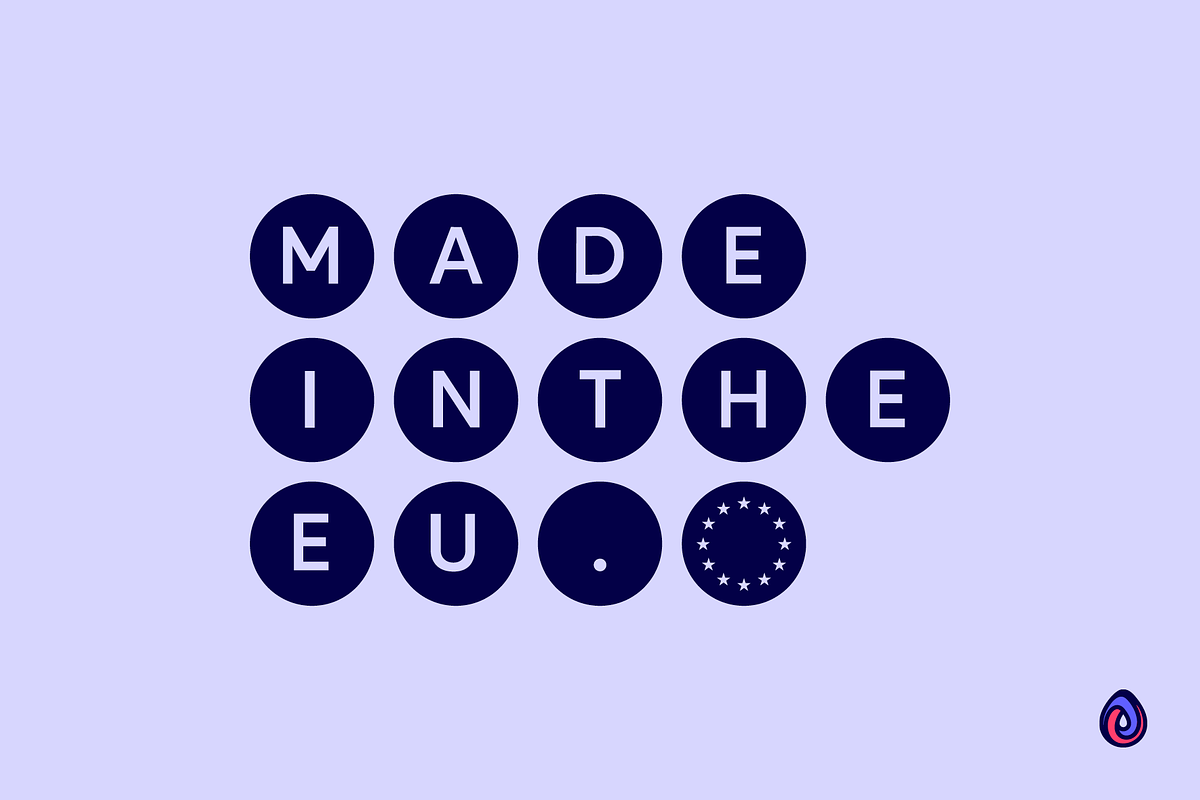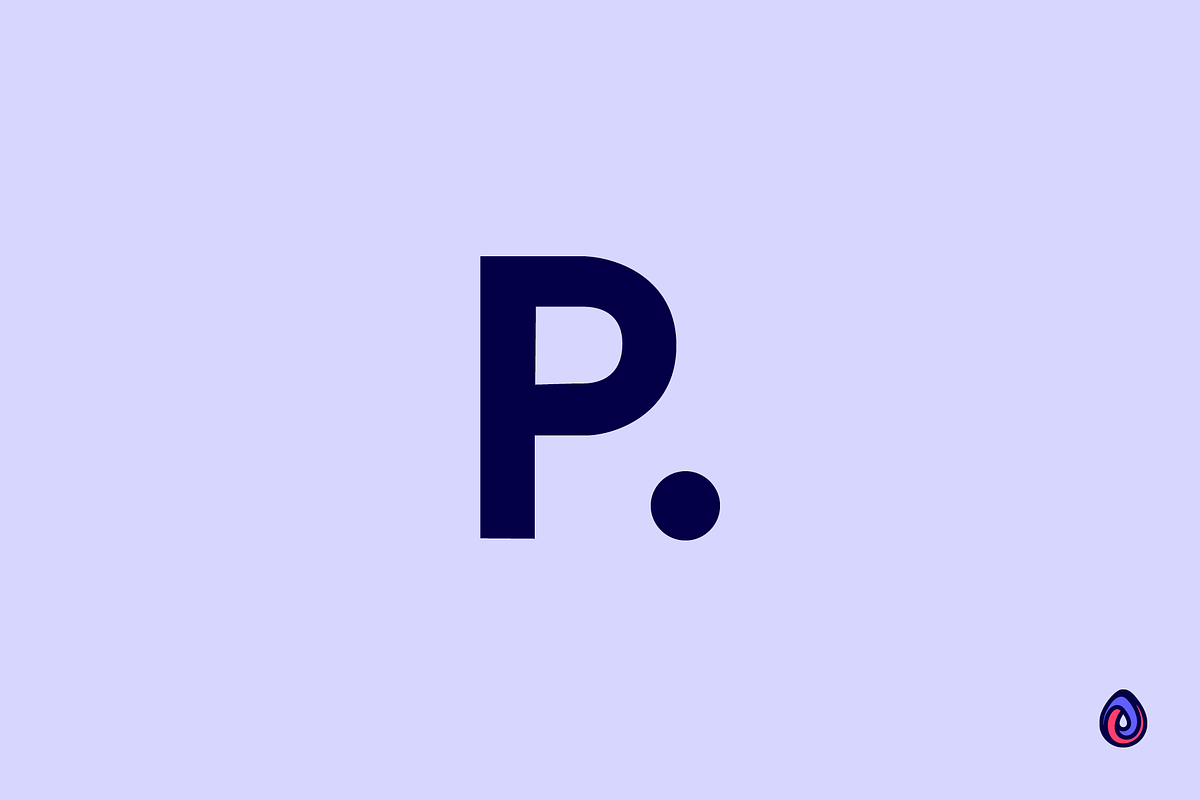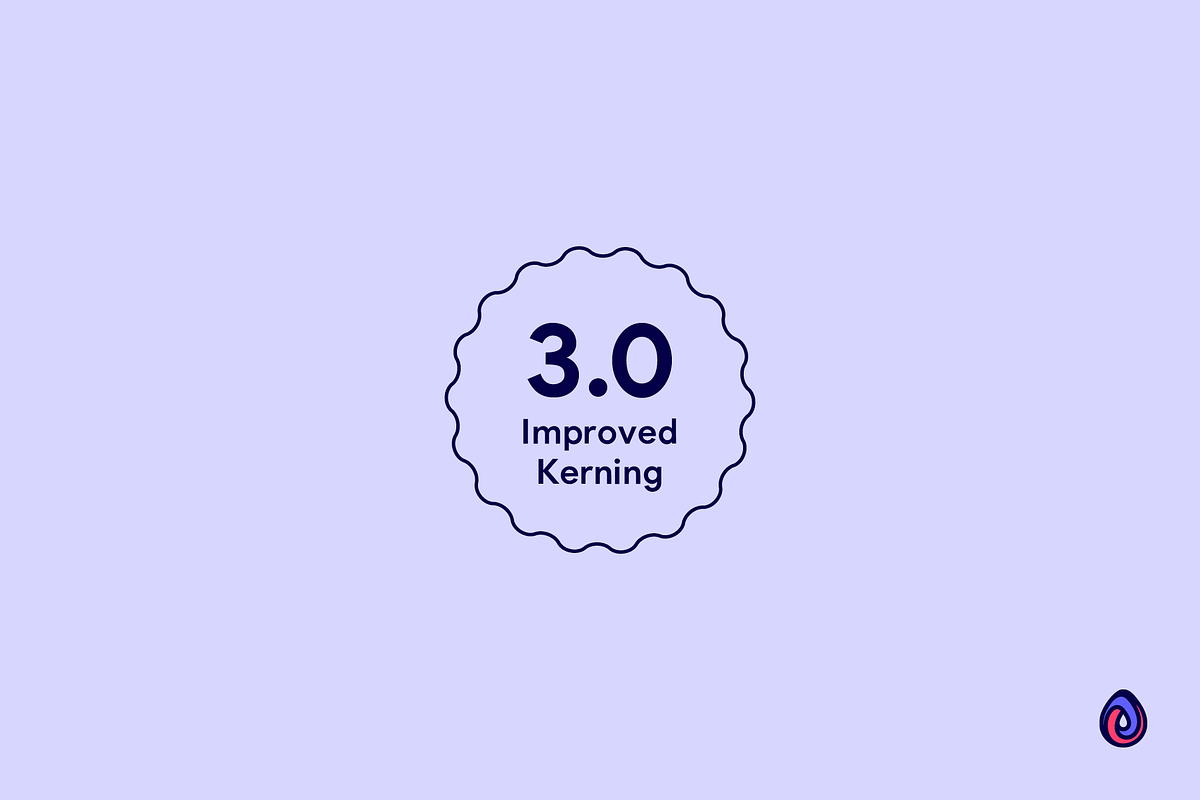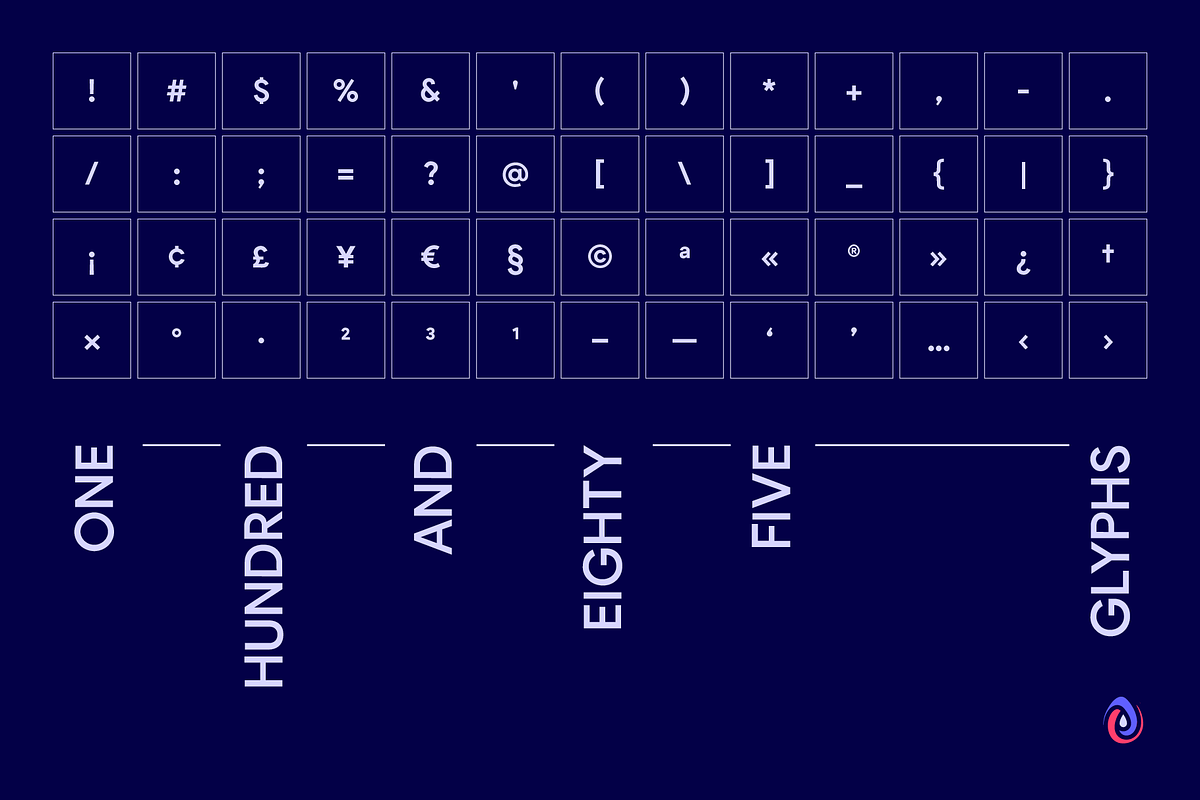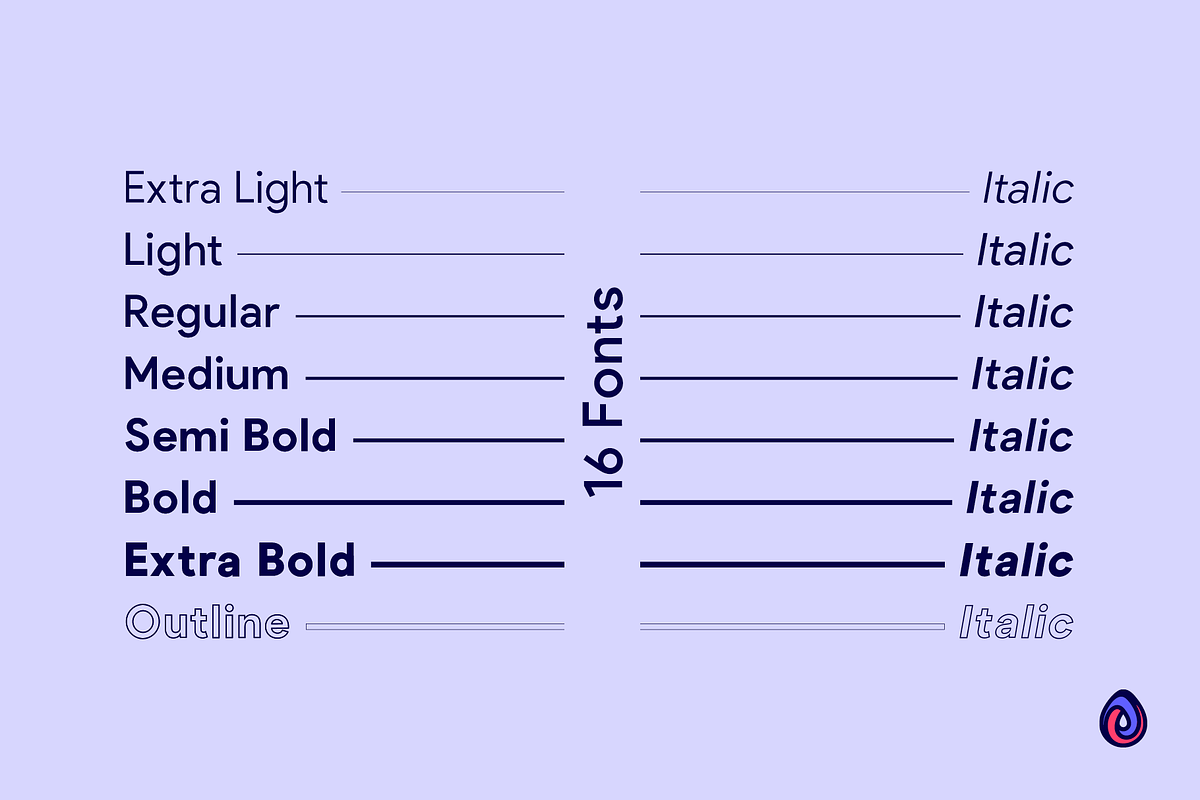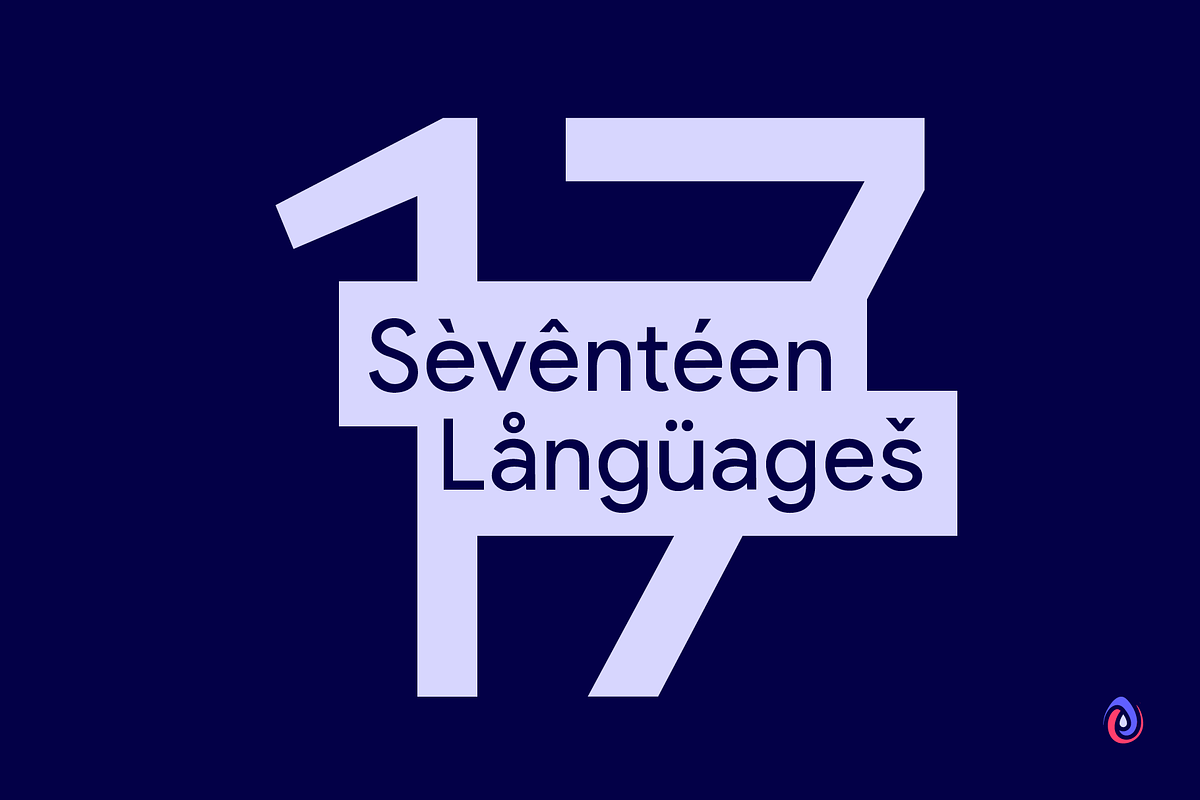
Pulp Display
Designed in Spain amongst the orange trees, Pulp Display represents the best of modern circular aesthetic with an air of friendliness. Wholesome, full and juicy, it's everything you want out of a display font. It looks amazing at large sizes and, also, small sizes.
💪 16 Fonts. Extra Light, Extra Light Italic, Light, Light Italic, Regular, Regular Italic, Medium, Medium Italic, Semi Bold, Semi Bold Italic, Bold, Bold Italic, Extra Bold, Extra Bold Italic, Outline, Outline Italic.
🇳🇱 17 Languages. Basque, Catalan, Danish, Dutch, English, Estonian, Finnish, French, Frisian, Galician, German, Irish, Italian, Norwegian, Portuguese, Spanish and Swedish.
💎 185 Glyphs. 36 Punctuation Marks, 57 Uppercase Letters, 60 Lowercase Letters, Full Number Set.
Looks great packaged on wrapping, bottles and jars or digitally on websites, social and apps or printed on newspapers, magazines and flyers.